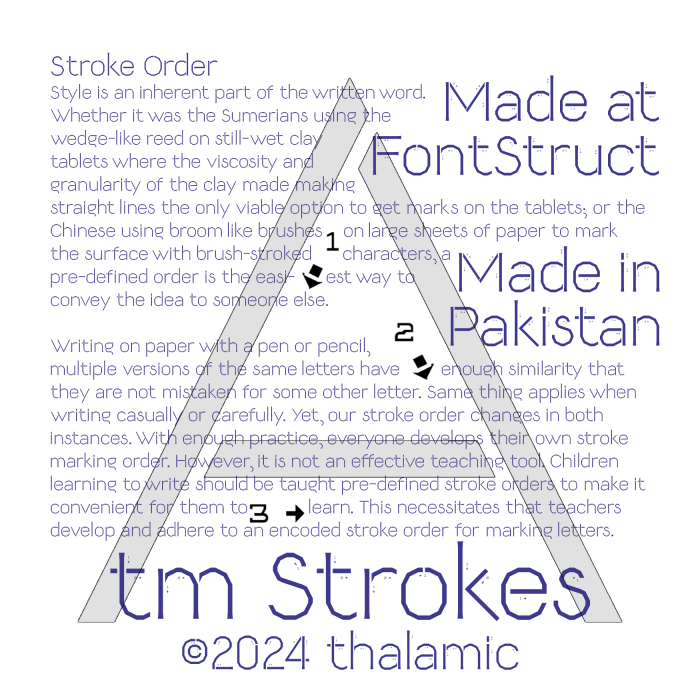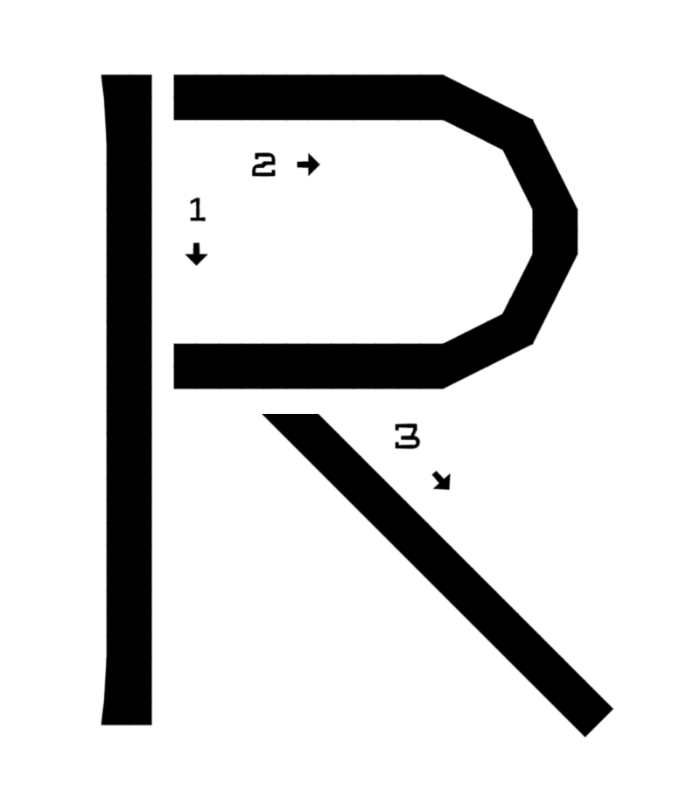
I remember from back when I was learning Japanese, that the stroke order in writing hiragana, katakana, and kanji was important. I didn't get very far in my Japanese studies, but even then some of the kanji were like 17 strokes each, and each with a specific order of marking the strokes. Thinking of what would be appropriate for a number competition, I recalled the number and order of strokes per glyph idea. Hence, this font.
The idea brought with it an inherent text font sensibility. Deciding on the slope of the diagonal strokes was tricky as they rendered those letter either too wide or too narrow. The correct choice was a slope with a flat top or bottom. That allowed the width of the letter whatever I wanted but the flat top took away from the natural marking of the stroke, as in: no one actually writes an A with a horizontal top stroke. Settled on the current slope and width. Still, the letters came together fairly quickly; the kerning not so much. Whether they were adjusted or not, around 10,000 kerning pairs were checked. More than 2500 kerning pairs are included here...and many more still remain. How good or consistent the kerning is is for other's to judge.
Some of the glyphs are quirky, I know. There are already hundreds of thousands of exceptional standard text fonts. No point redoing those.
Due to the need to show the strokes individually, the font came out as stencil. That was an unintentional byproduct of the idea.
Some strokes are split in two to show distinction between the crossing strokes, but technically they would be continuous.
The strokes are based on my own handwriting style; others may do it differently. For example, when being careful, I write the Z in three strokes, whereas I suspect others probably write it in one.
This is not a color font even though it is auto-charcterized as one because at one point I experimented with making the stroke-order numbers gray. I thought about copy-pasting the glyphs in a new FS, but the follow-up thought of having to redo the kerning quickly put a stop to that madness.
People who love calligraphy know that you have to start drawing a letter in a certain position and then follow a series of concatenated steps to achieve a good result. If you extend this to an entire typography, you may encounter some problems, because each glyph has to be resolved in several different ways depending on whether it is accompanied by one or another letter, in front or behind... It is the ductus, a fascinating world that we see here!
I'm in love with that Ampersand !
presicion 💯
Oh, you forgot to make a picture with an example of the font numbers, I think you still have some time. The font itself is well balanced and just looks clean and nice without numbers and arrows, I noticed these expanding endings of strokes. Maybe you'll make a version of just stencil later.
Excellent sample, beautifully illustrating your concept!
I'd like to say a few words about this fine work. The proportions are beautiful. However, the A, V, and W are wider than necessary. Try using custom bricks of steeper 1:4 incline. The G, g, and R need more work, too. The N and Z are superb. I know it isn't easy to get them right. My suggestion for the R is to combine elements of the B and K (see picture). I like the polygonal shapes. Kudos for the documentation and demo pictures. I hope you build the Hiragana and Katakana set soon. Congratulations. 10/10
really unique concept for a font. Could be very helpful for students learning English or children first learning how to write.